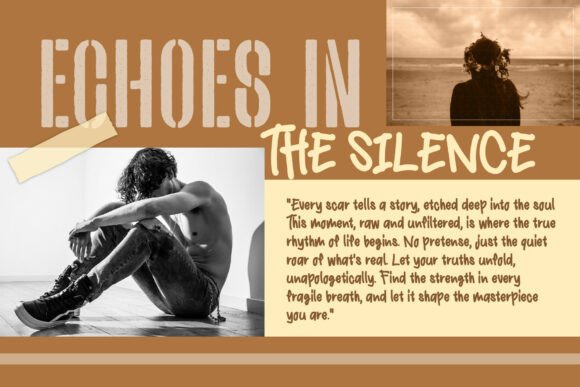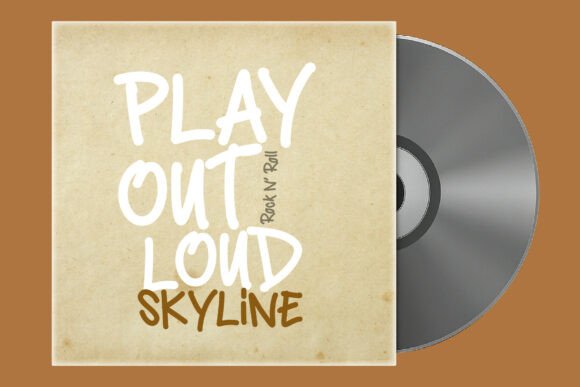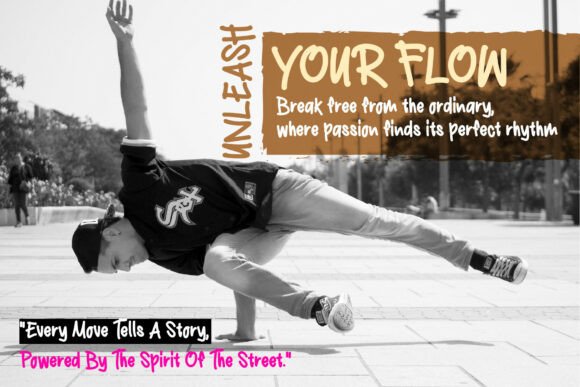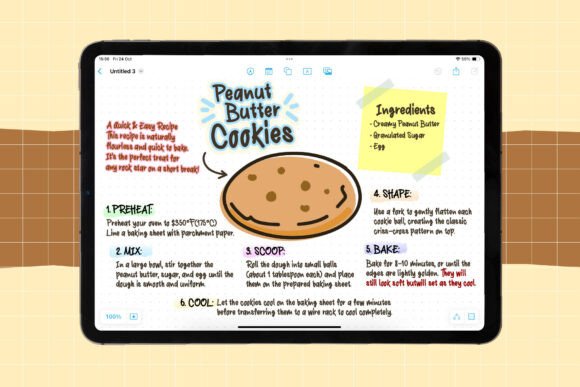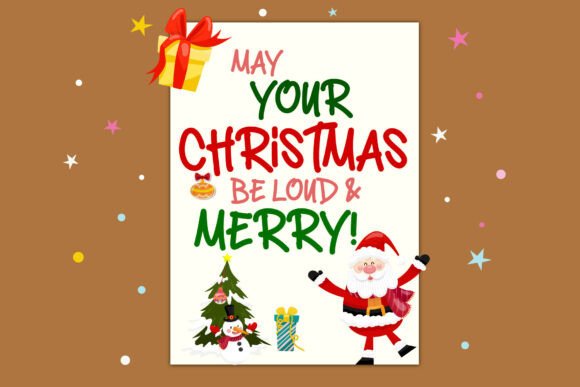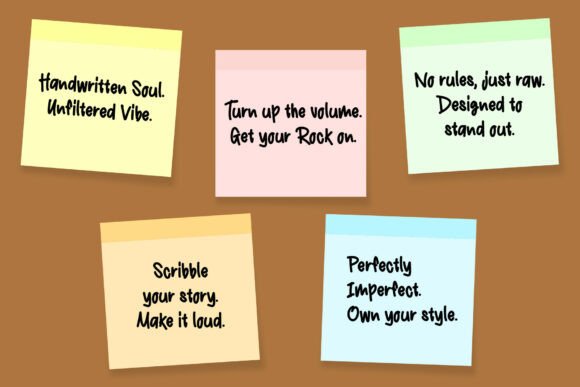
Introduction to Rocky Roll Font
Channel your inner rebel with Rocky Roll.
Has the mundanity of clean, everyday typefaces left you yearning for something new Enter Rocky Roll, an unembellished, handcrafted display font, conceived for spirited designers eager to break the mold.
Key Features of Rocky Roll Font